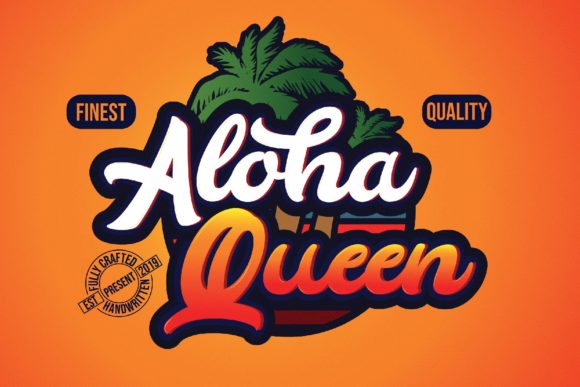
The Aloha Font: A Retro Handwritten Gem to Elevate Your Designs
I’ll never forget the time I was working on a project for a beachside resort, struggling to find the perfect font that captured the essence of aloha spirit. The design needed to be fun, playful, and inviting, but everything I tried seemed to fall flat. That’s when I stumbled upon the Aloha font, a retro handwritten gem that instantly transported me to the sun-kissed beaches of Hawaii. In this article, I’ll share my love for this extraordinary font, its features, and how to make the most of it in your designs.
A Personal Review: What I Love About Aloha Font
Here’s what makes Aloha font a standout:
- ✨ Unique and quirky feel: Aloha font has an undeniable charm that sets it apart from more traditional fonts.
- ✅ Highly legible: Despite its playful nature, Aloha font remains easy to read, making it perfect for body text and headlines.
- 💫 Versatile: This font works beautifully for a wide range of design projects, from branding and packaging to posters and invitations.
While Aloha font is amazing, there are a few things to keep in mind:
- ⚠️ Limited use in very small sizes: Due to its handwritten nature, Aloha font may not be the best choice for very small text sizes or captions.
- 🤔 Some letters may require manual kerning: As with any handwritten font, you might need to adjust the spacing between certain letters for optimal results.
The Story Behind Aloha Font
Aloha font was inspired by the carefree spirit of Hawaii’s beaches and the art of traditional handwritten lettering. Its creator aimed to capture the essence of a bygone era, when handwritten signs and posters were a staple of beachside towns. The result is a font that’s equal parts nostalgic and modern, perfect for designers looking to add a touch of aloha to their work.
| Font Name | Aloha Font |
| Author | Ian Mikraz |
| What makes Aloha font unique? | Aloha font’s unique blend of playfulness, legibility, and versatility makes it a standout in the world of handwritten fonts. |
| Is Aloha font suitable for body text? | While Aloha font is highly legible, it’s best suited for headlines, titles, and short paragraphs. For longer body text, consider using a more traditional font. |